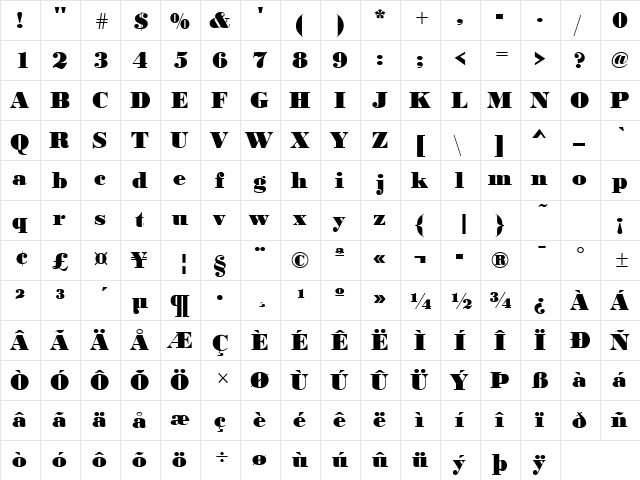
BodoniH Bold
Design Context for BodoniH Typeface
BodoniH is a composed and adaptable typeface that performs quietly and consistently across a wide range of design contexts. Its bold stroke weight gives it real presence on the page.